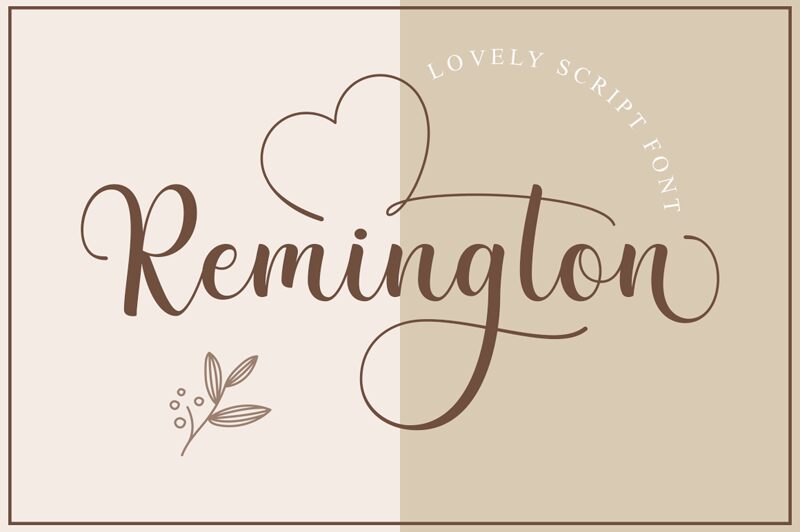
Remington
Remington, a captivating calligraphy font crafted by Fadlilah Studio, exudes a refined elegance and timeless charm. This script-inspired typeface showcases a harmonious blend of flowing curves and sharp, dynamic strokes, creating a mesmerizing visual experience. The delicate balance between graceful connectivity and distinctive character lends an air of sophistication and artistry to any project.
This versatile font excels in a variety of design applications, from high-end branding and editorial layouts to invitations and packaging. Its sophisticated aesthetic makes it an ideal choice for evoking a sense of luxury, while its adaptability allows it to seamlessly integrate into both modern and traditional design landscapes. Remington by Fadlilah Studio is a truly remarkable font that elevates the art of typographic expression.